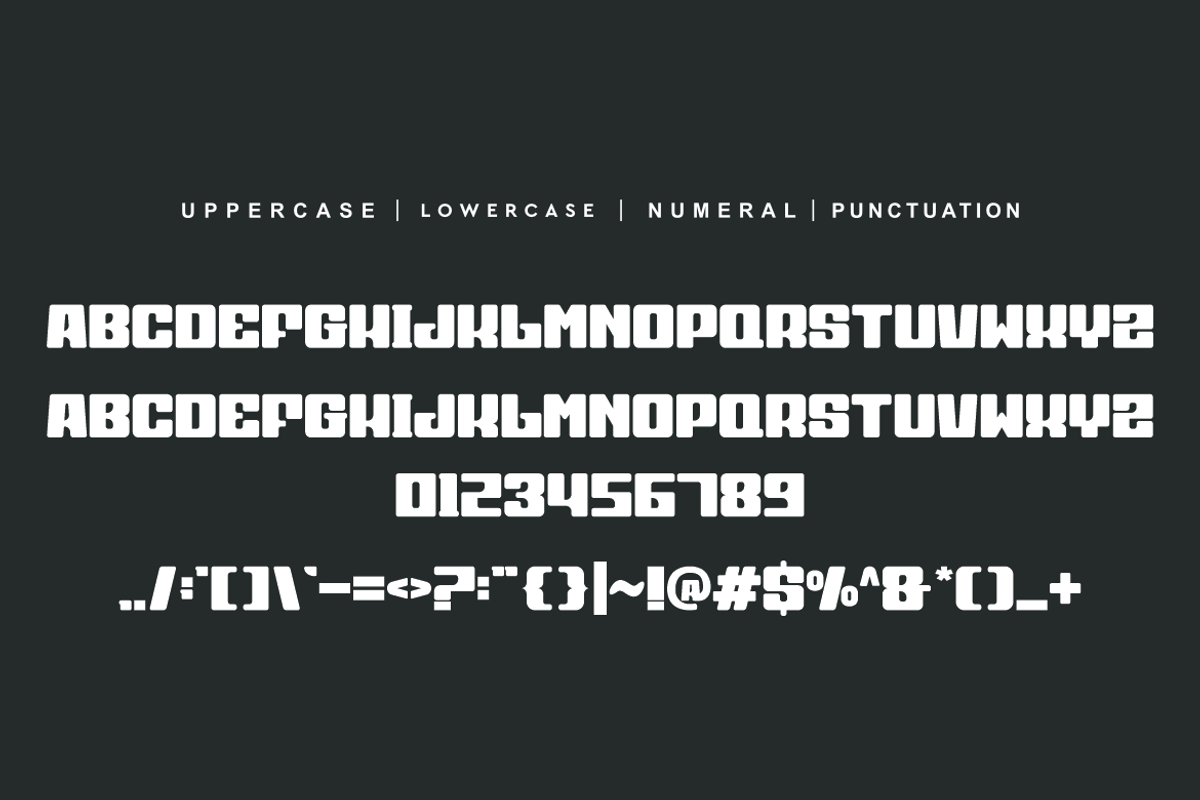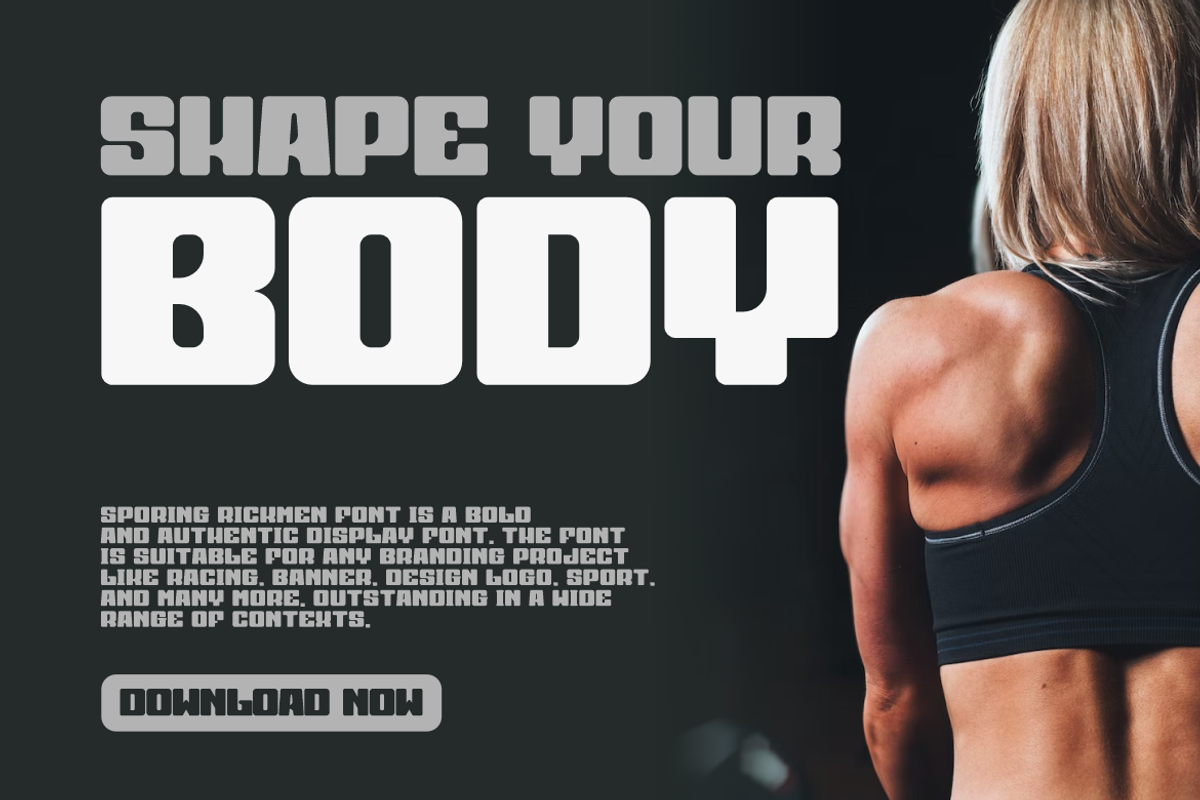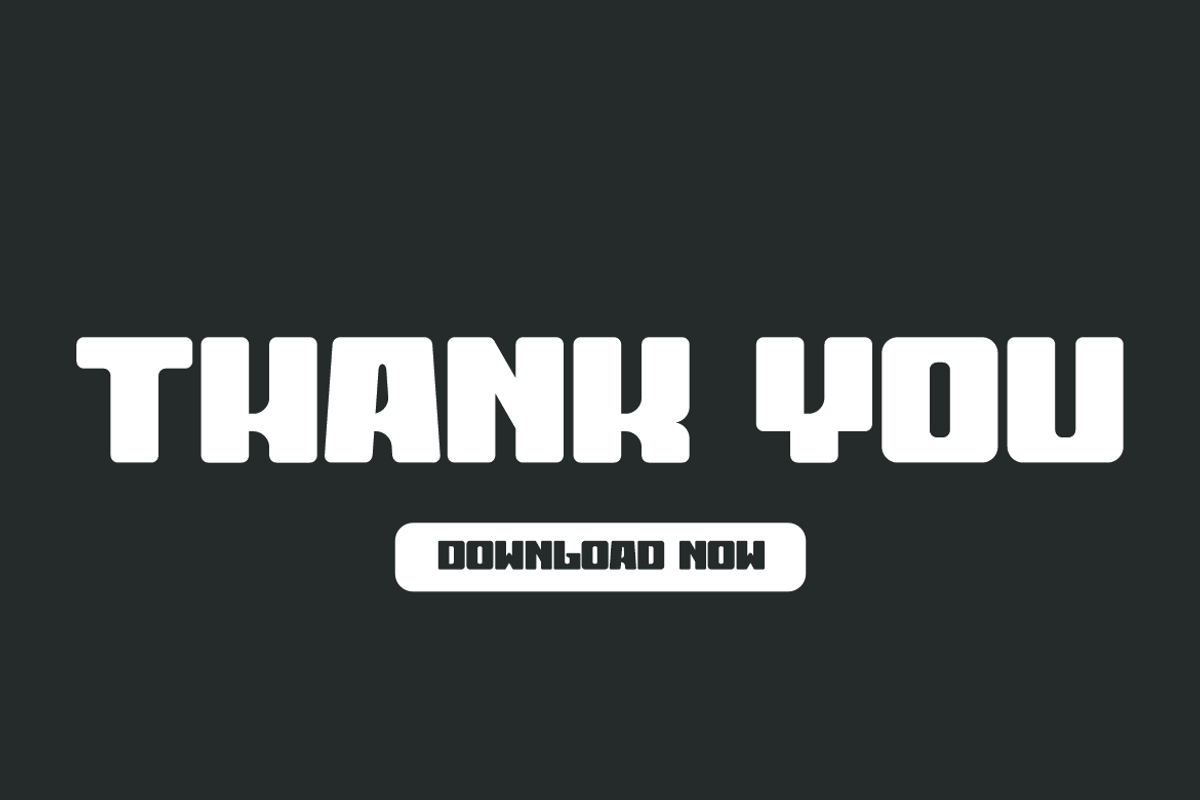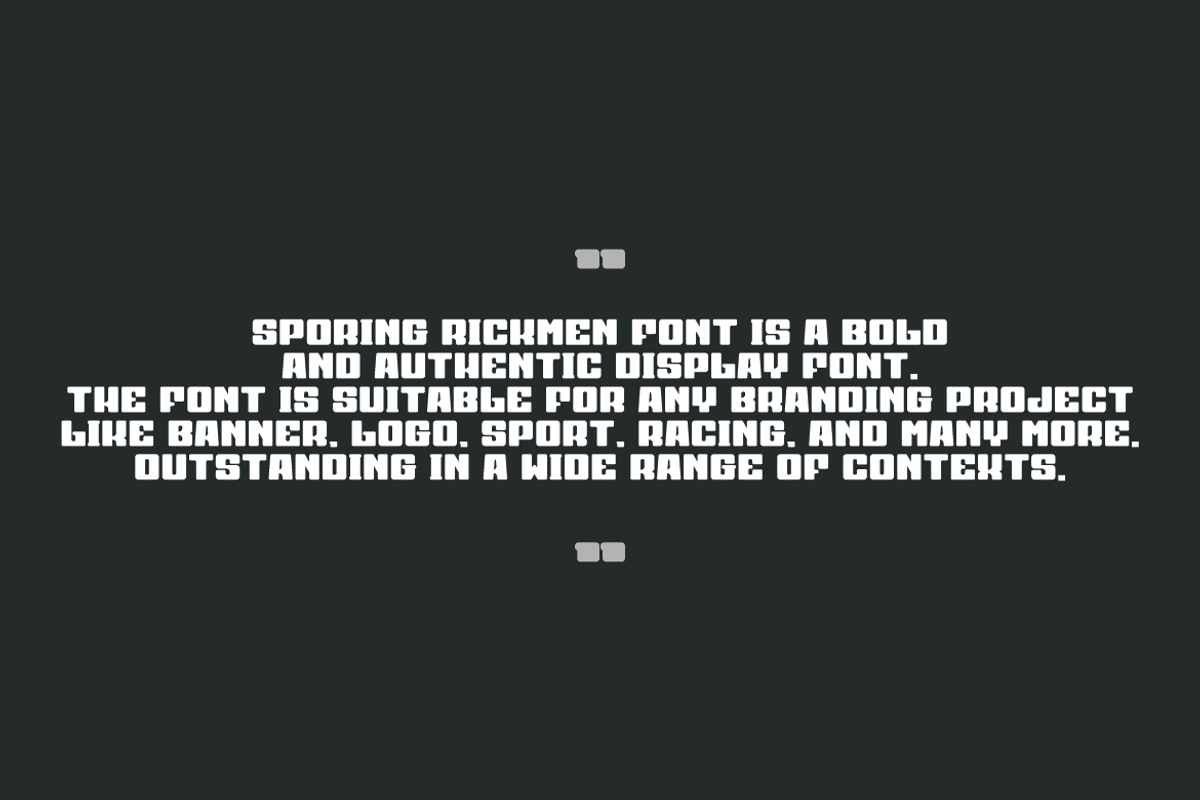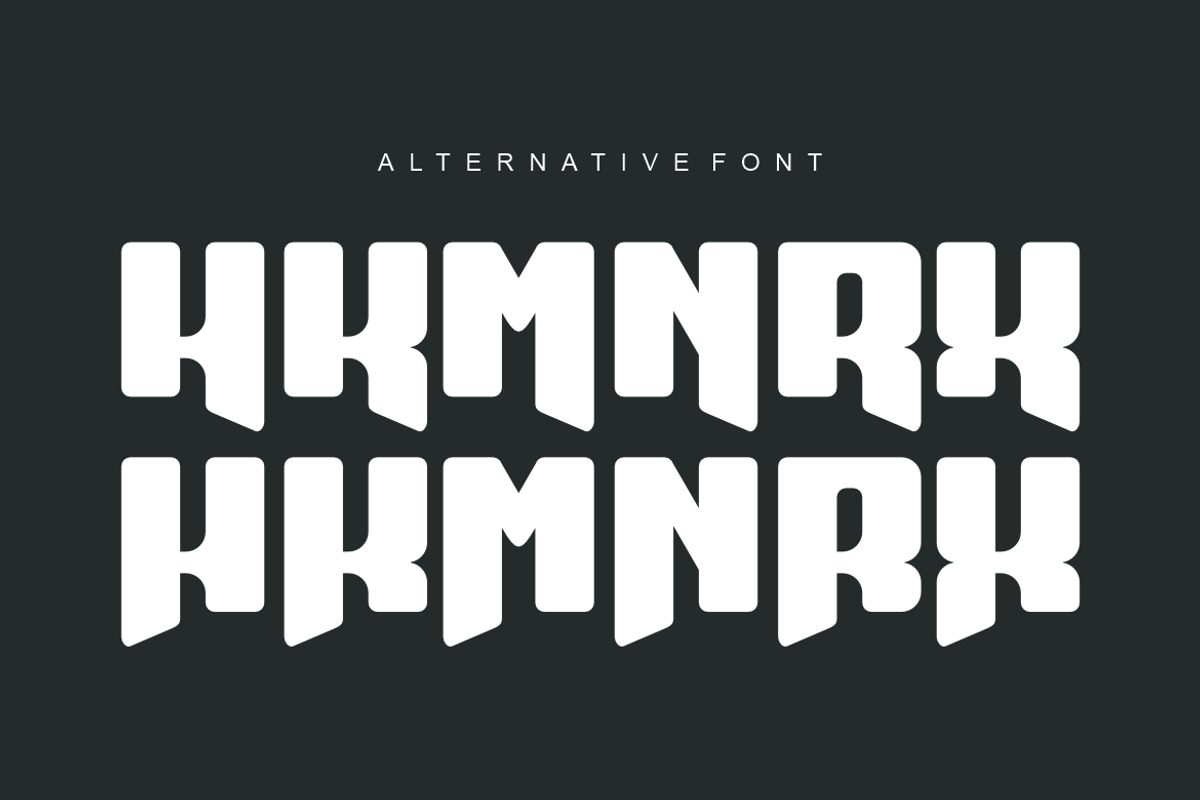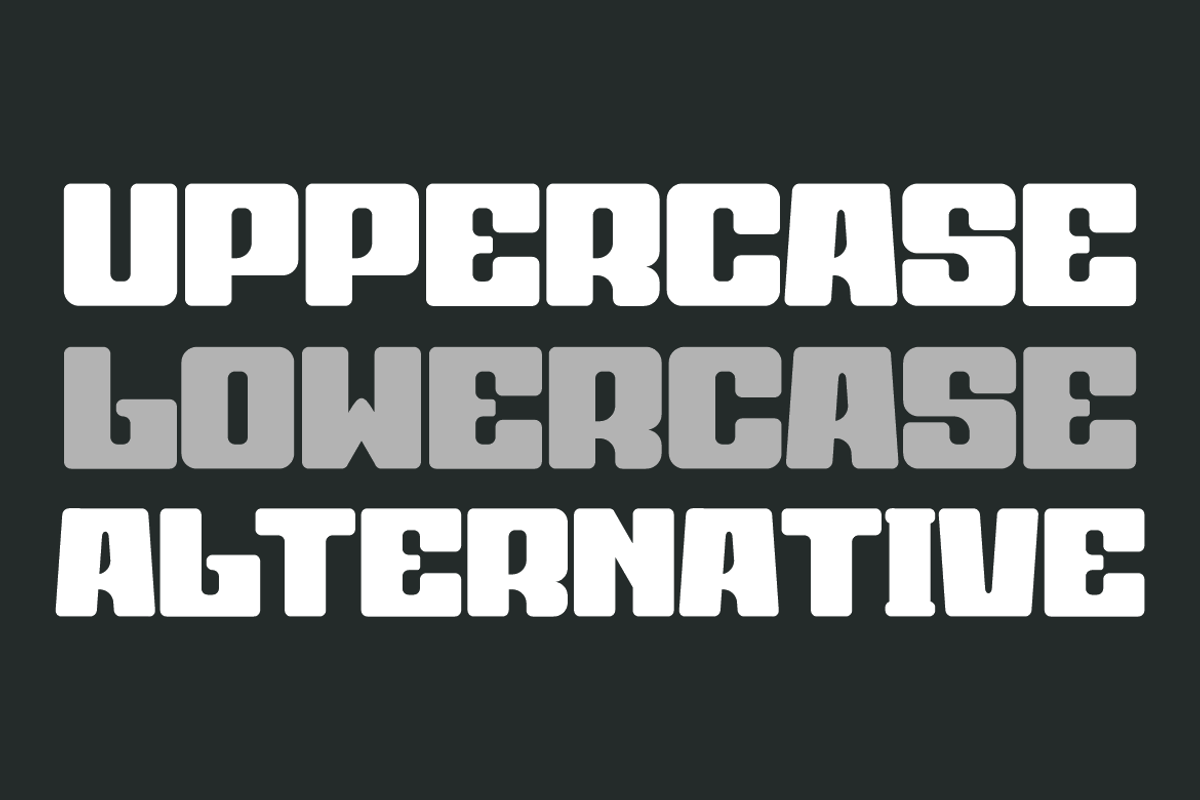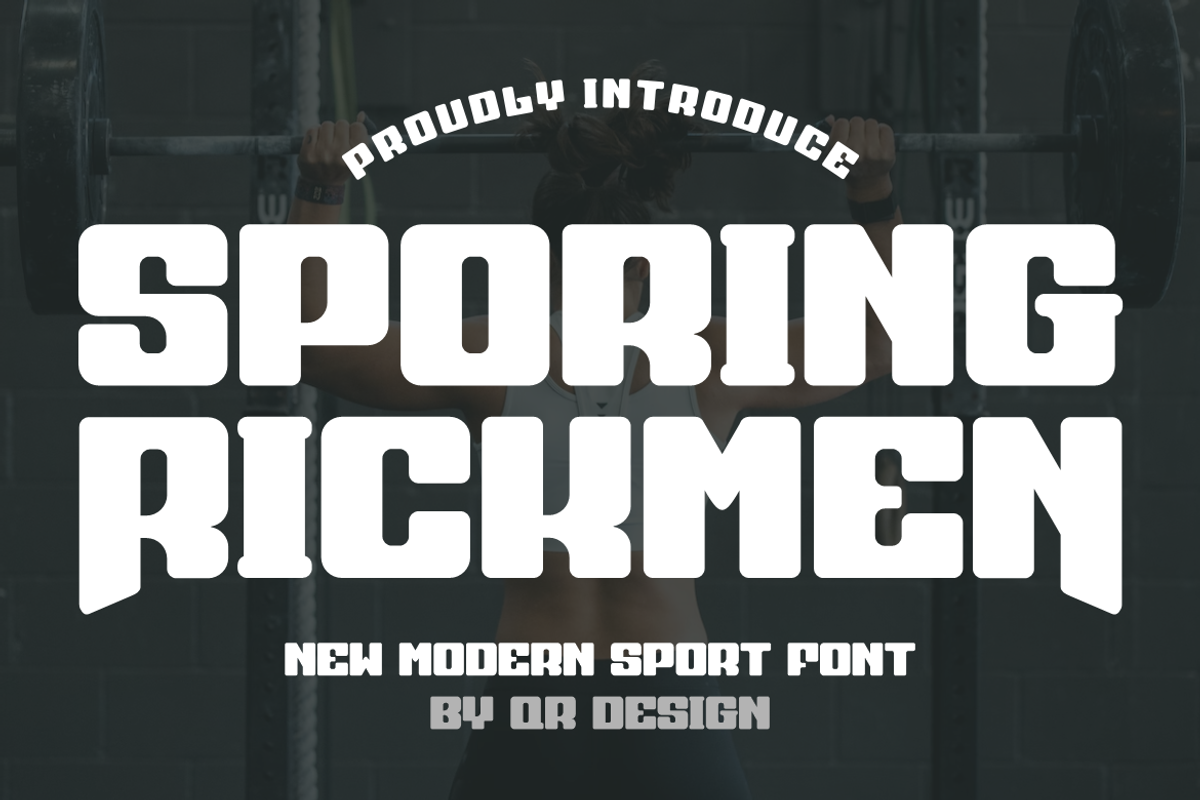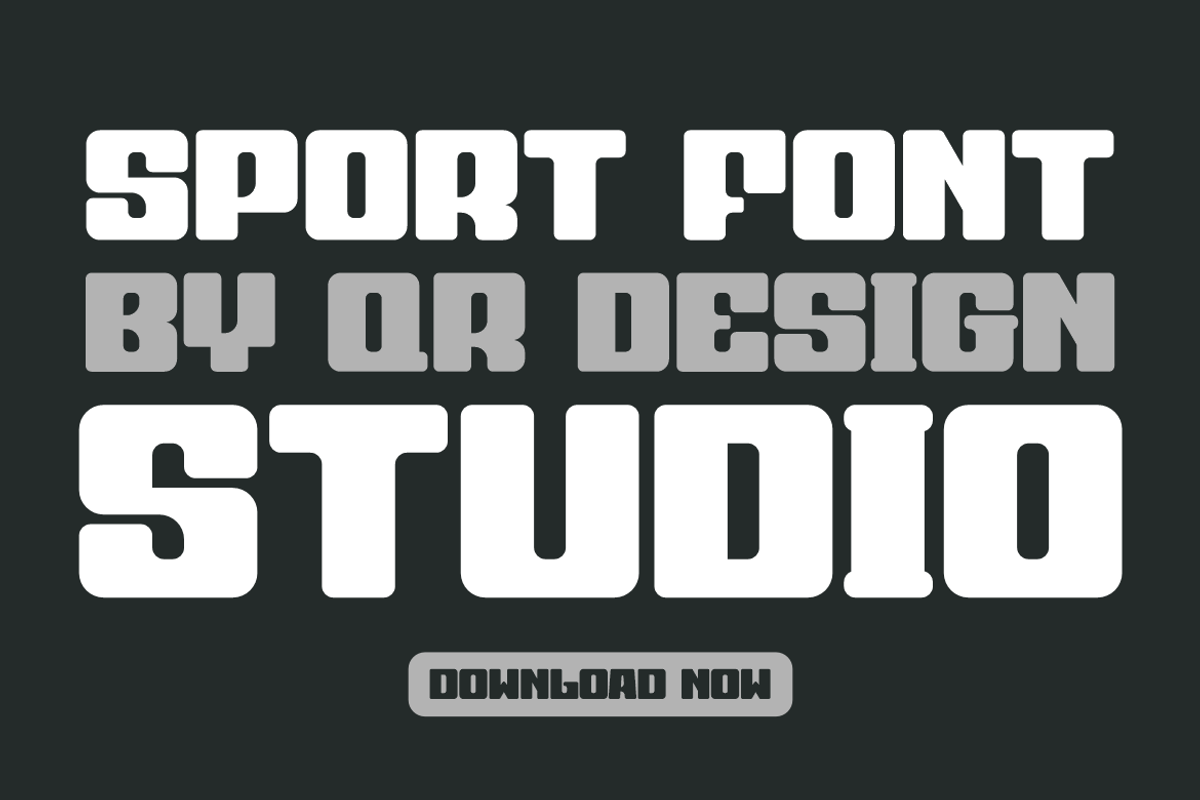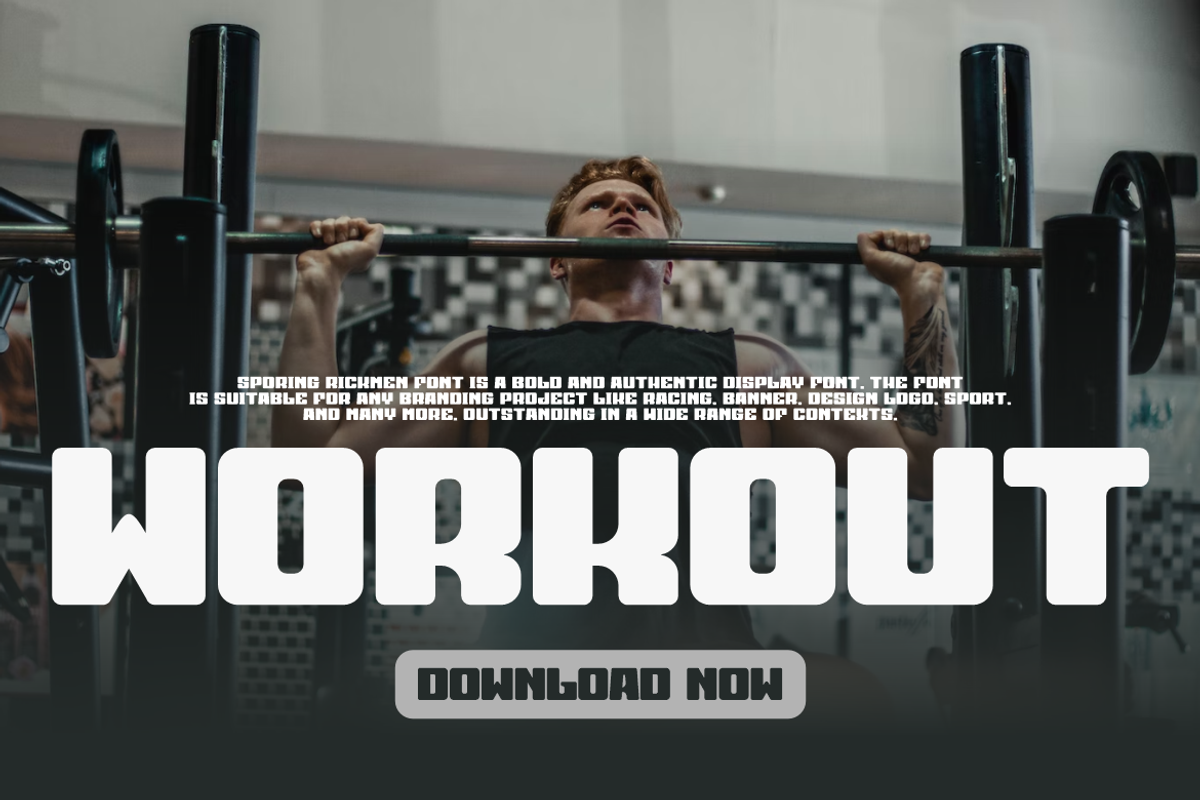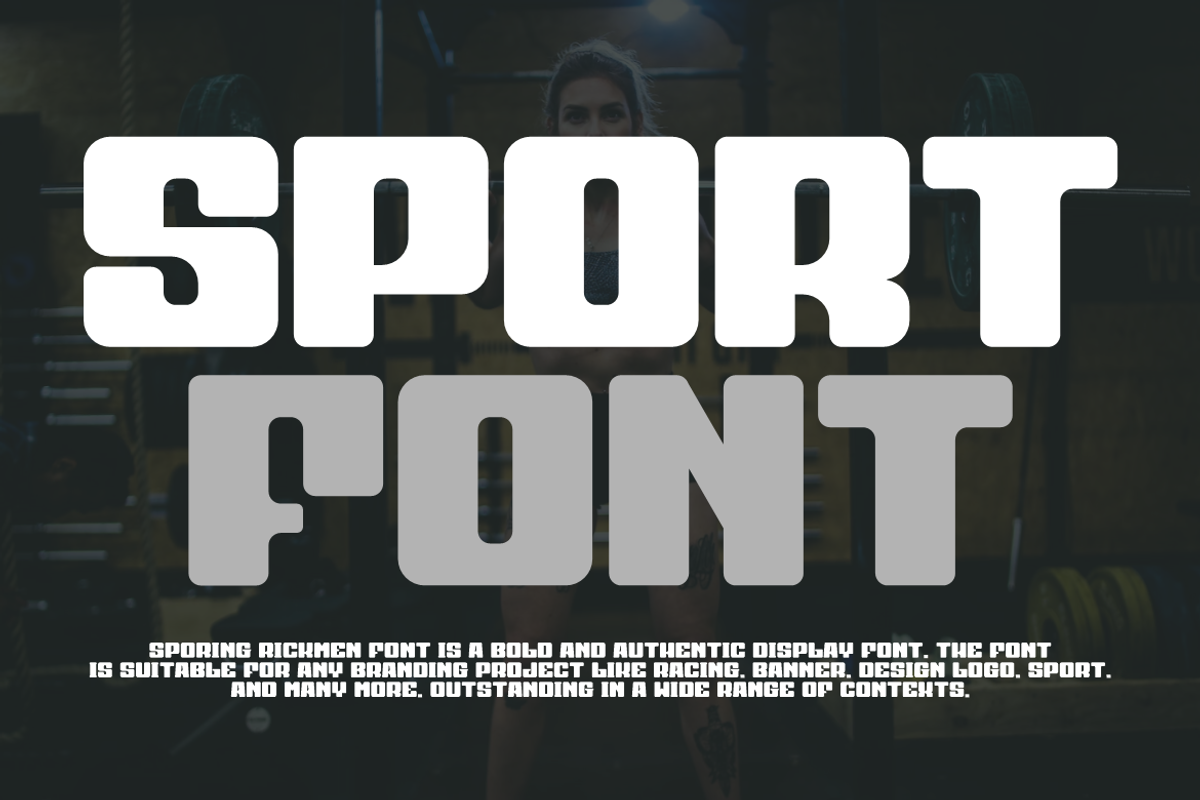
Sporing Rickmen
Sporing Rickmen Font is a bold and authentic display font. The font is suitable for any branding project like logo, sport, and many more. Outstanding in a wide range of contexts.